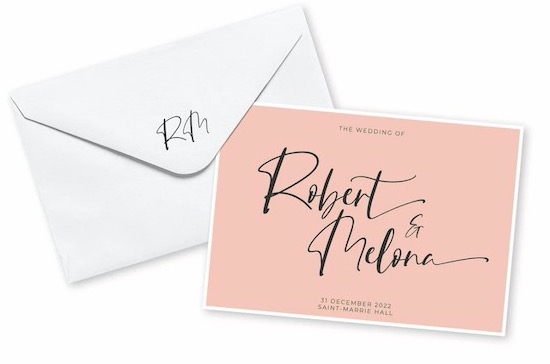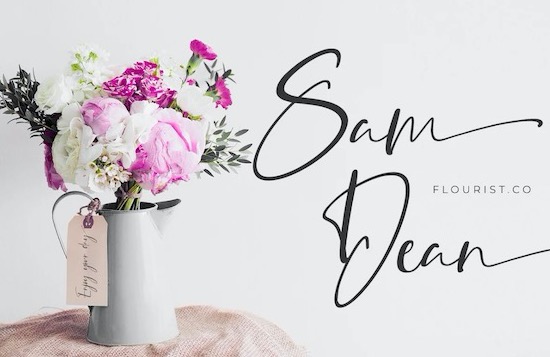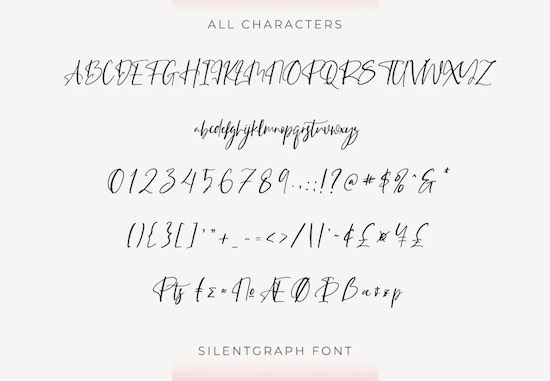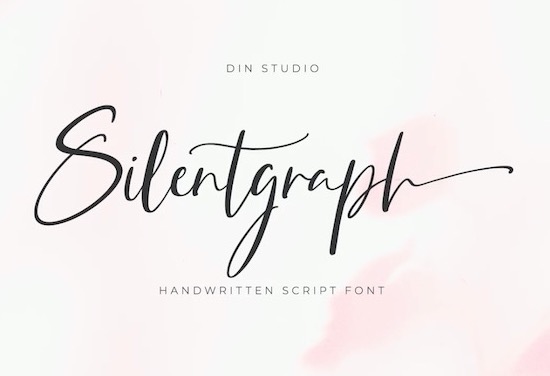
Silentgraph Font
Silentgraph is an elegant and delicate handwritten font that was designed and published by Donis Miftahudin. Its distinct and well-balanced letters make your design project become more lovely and this font is a masterpiece. Every stroke expresses beauty and cursive styles of which letters are interconnected. Details of each letter show curvy wipes and high contrasts on its edges. Use this font for big-sized texts to be legible.
Name: Silentgraph
Designed, Published by: Donis Miftahudin
Font Categories: Signature, Handwritten, Script